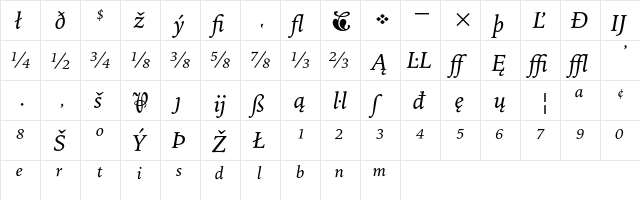
Bitstream Iowan Old Style Italic Extension
Design Context for Bitstream Iowan Old Style Typeface
Bitstream Iowan Old Style takes a measured approach to typography — its balanced proportions and neutral character make it a reliable workhorse for both digital and print work. Its italic angle brings a sense of urgency and motion to the letterforms.
Pro Tip: Use Bitstream Iowan Old Style for emphasis, pull quotes, and subheadings where its slanted energy can add rhythm to the layout.